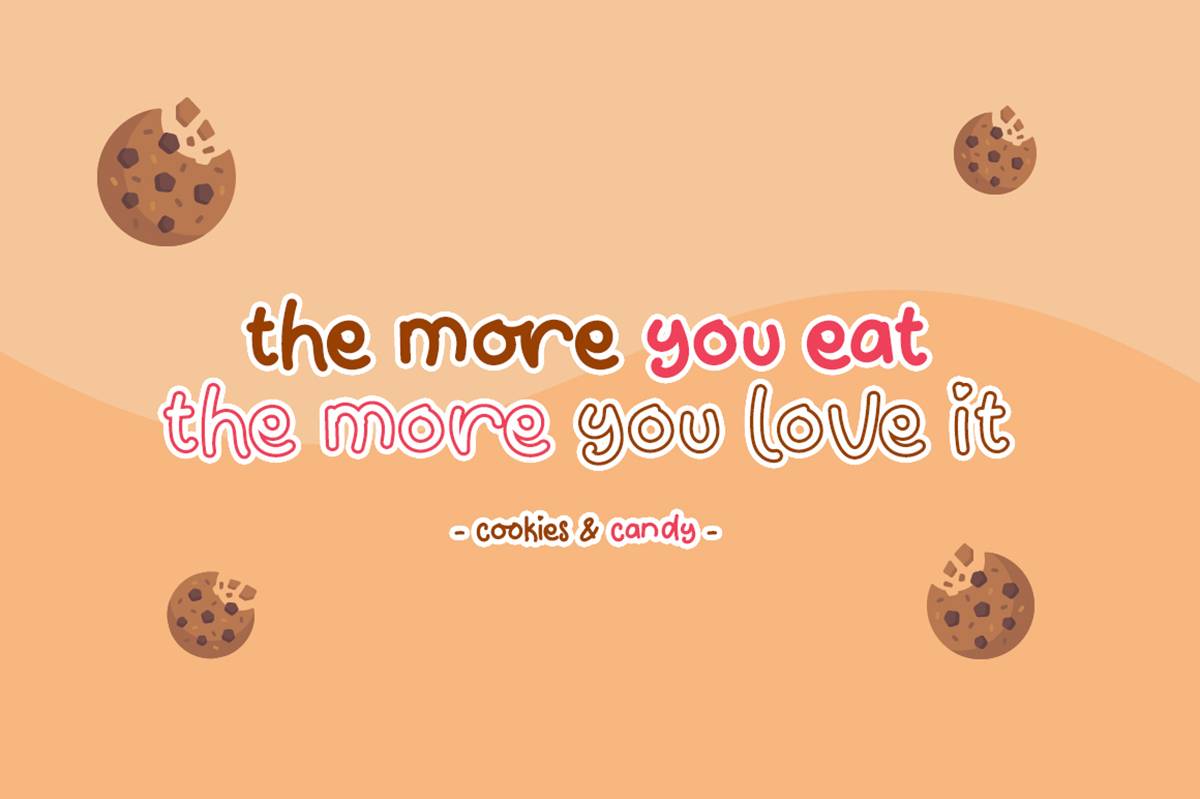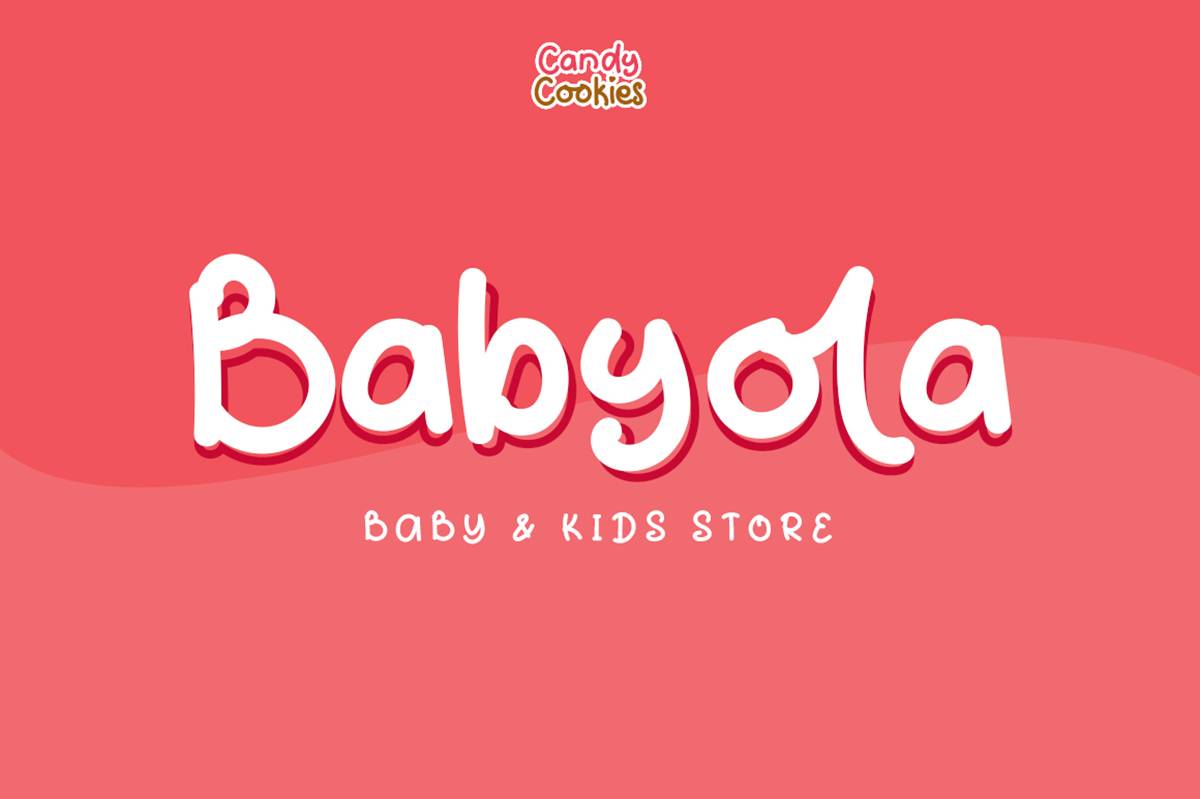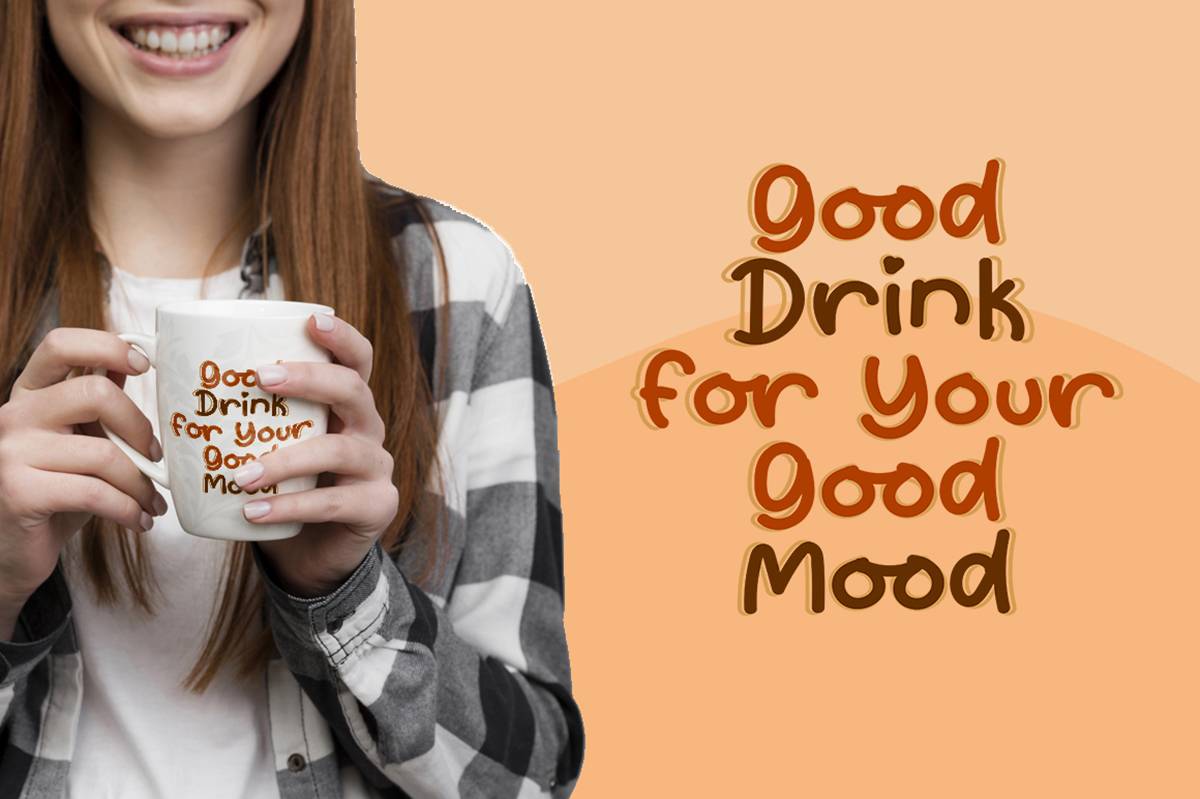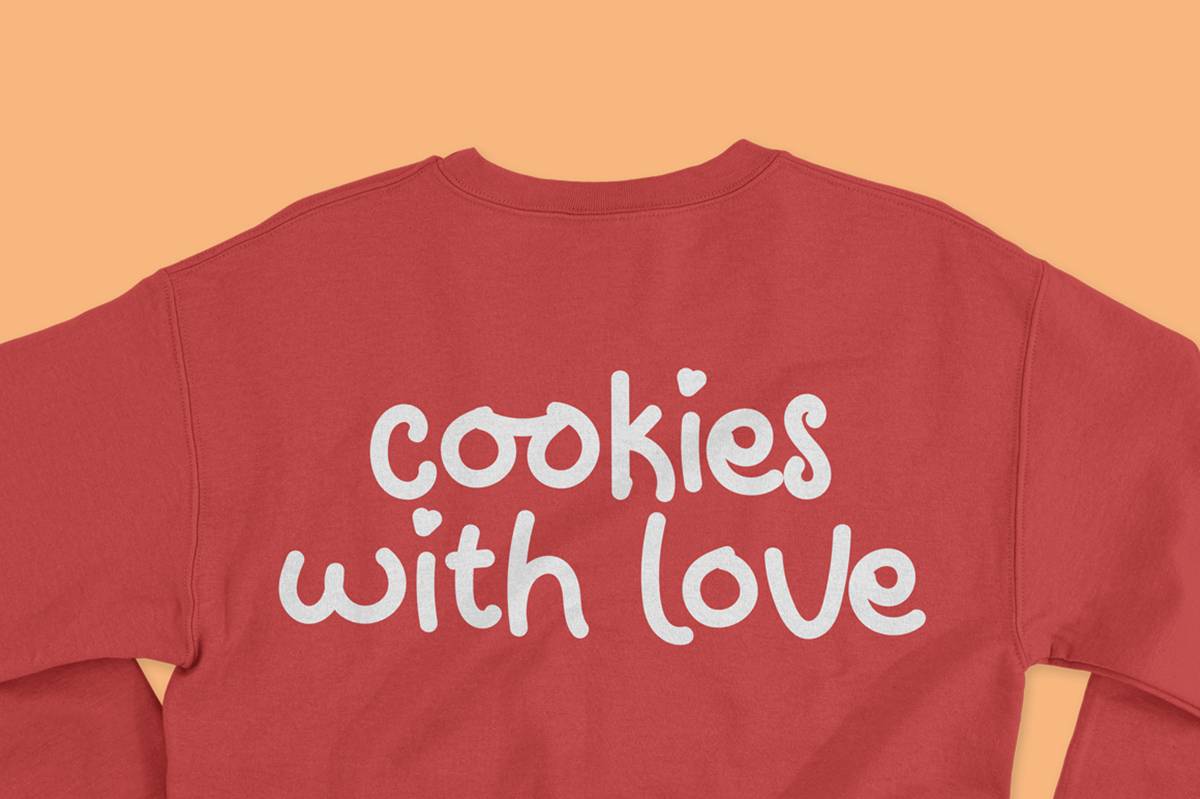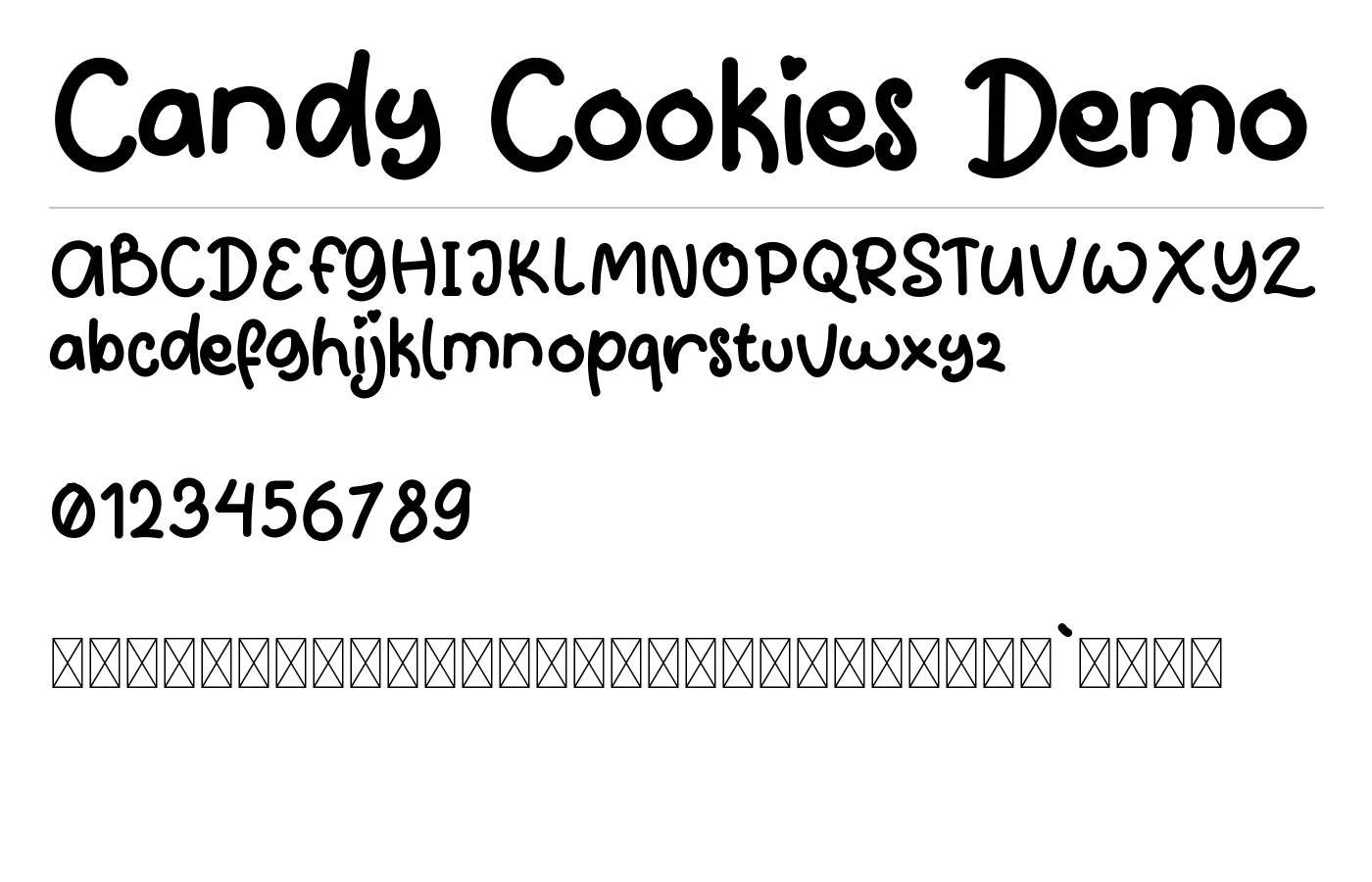
Candy Cookies is a playful, rounded sans serif font with a hand-drawn feel, featuring smooth, slightly irregular strokes that add warmth and charm. Its casual style and friendly letterforms make it perfect for kids' products, informal branding, and fun, approachable designs. This font works best in headlines, logos, and packaging where a cheerful and inviting mood is desired.
Candy Cookies Font
About Candy Cookies Font